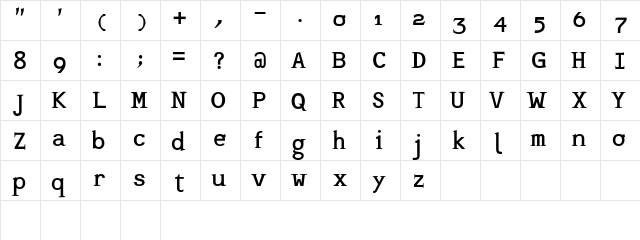
Mashburn .Regular TT
Design Context for Mashburn Typeface
Mashburn offers clean, dependable letterforms without strong stylistic allegiance, making it a practical choice for designers who need flexibility.
Pro Tip: Pair Mashburn with a font of contrasting weight or personality to build a more expressive typographic hierarchy.